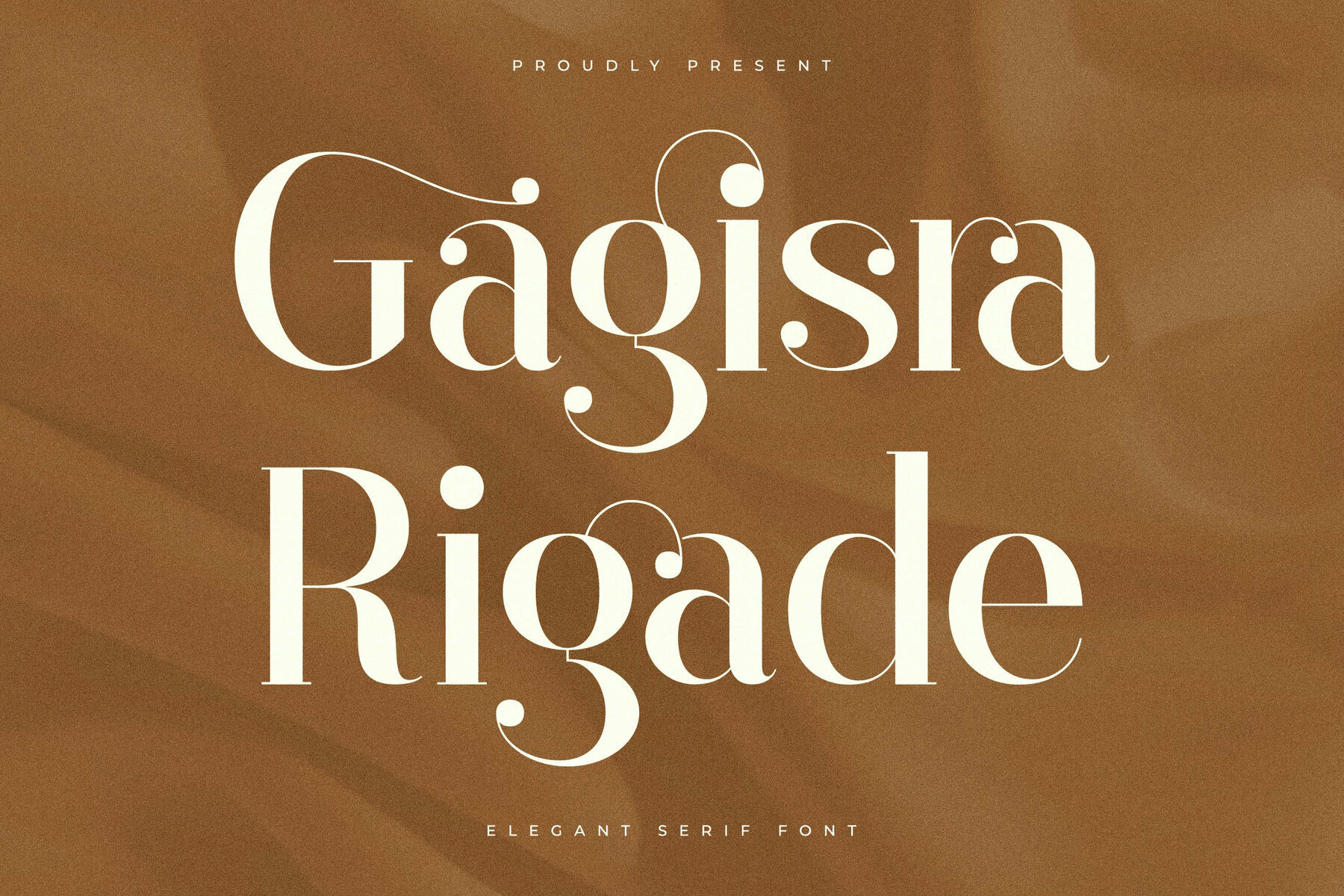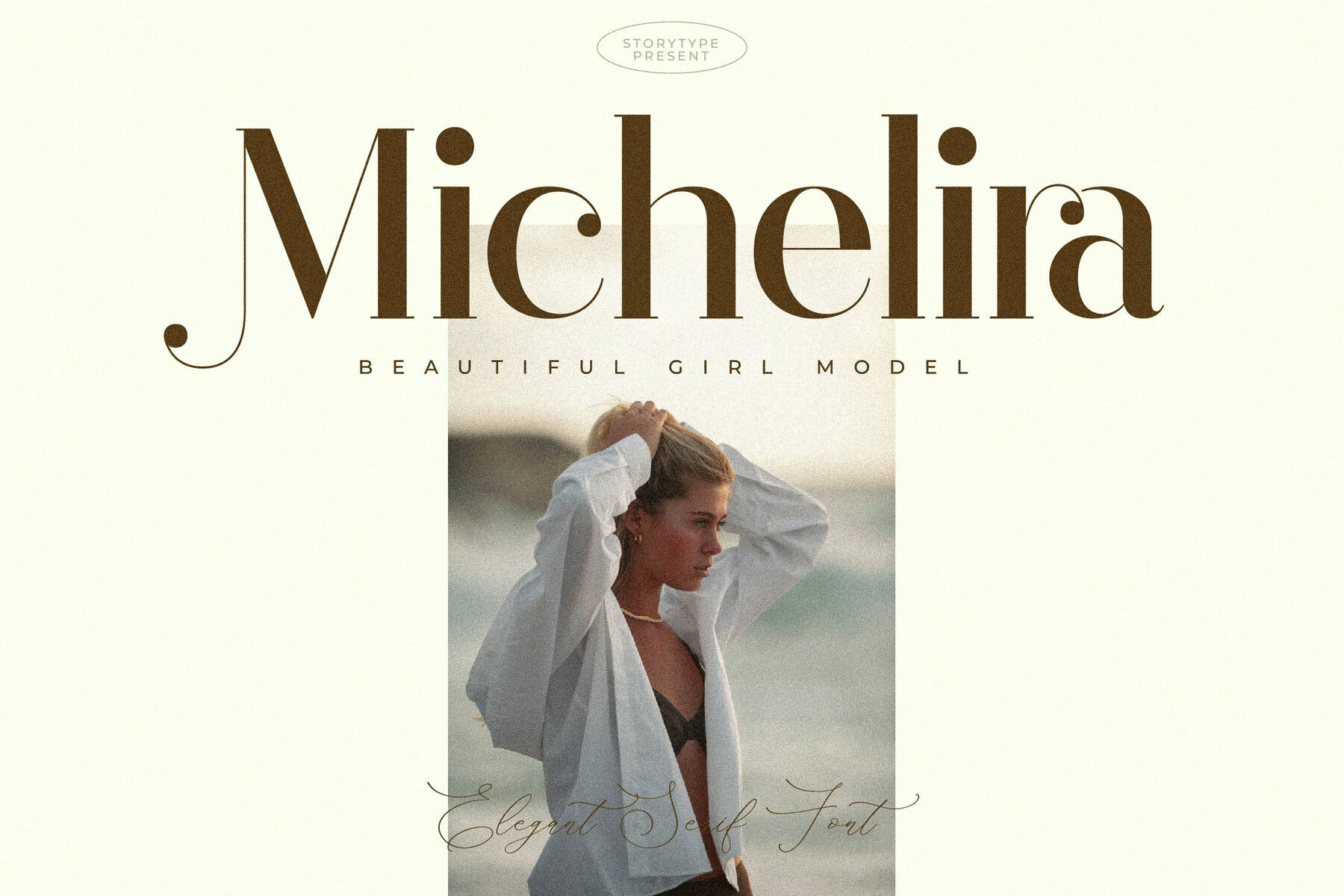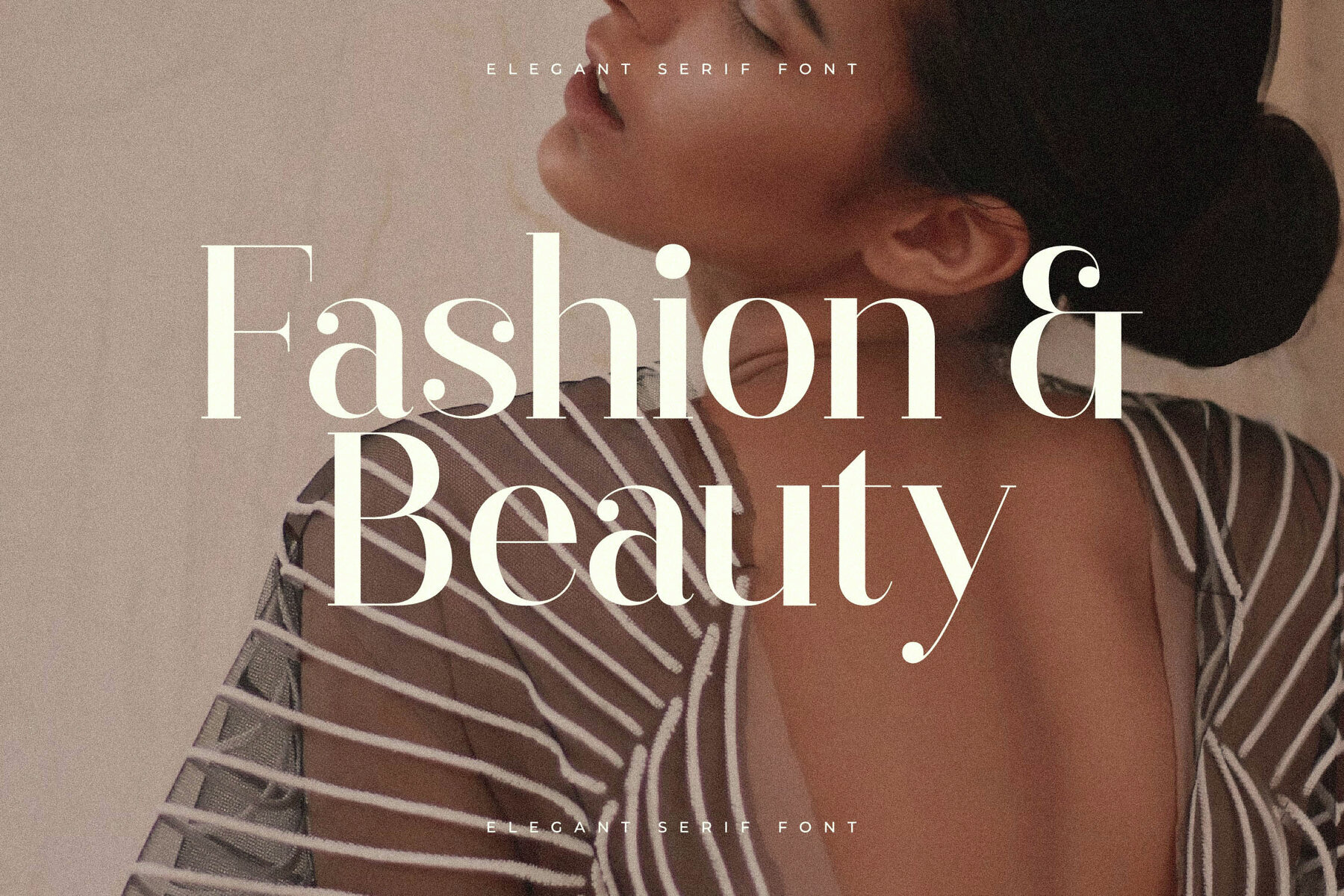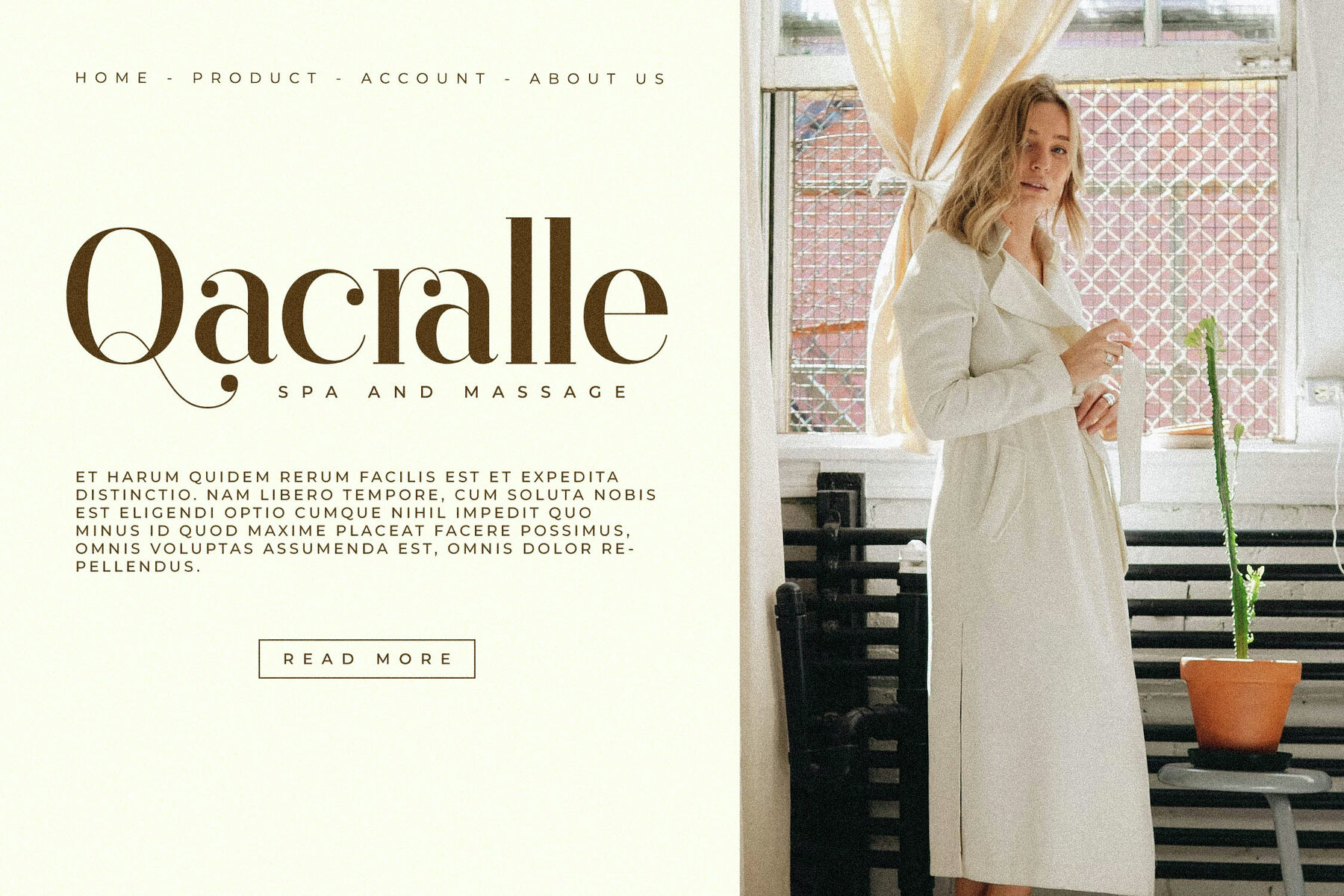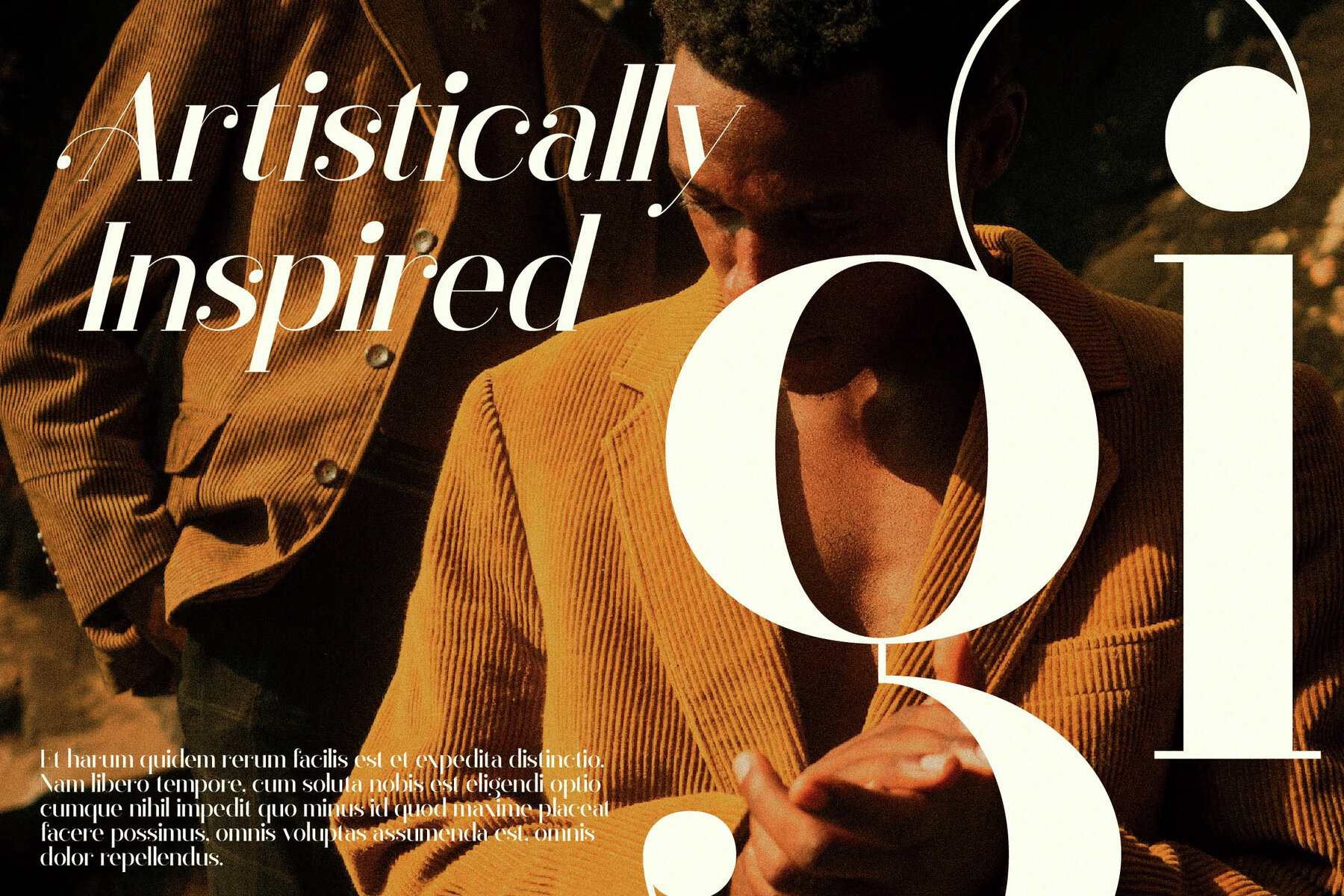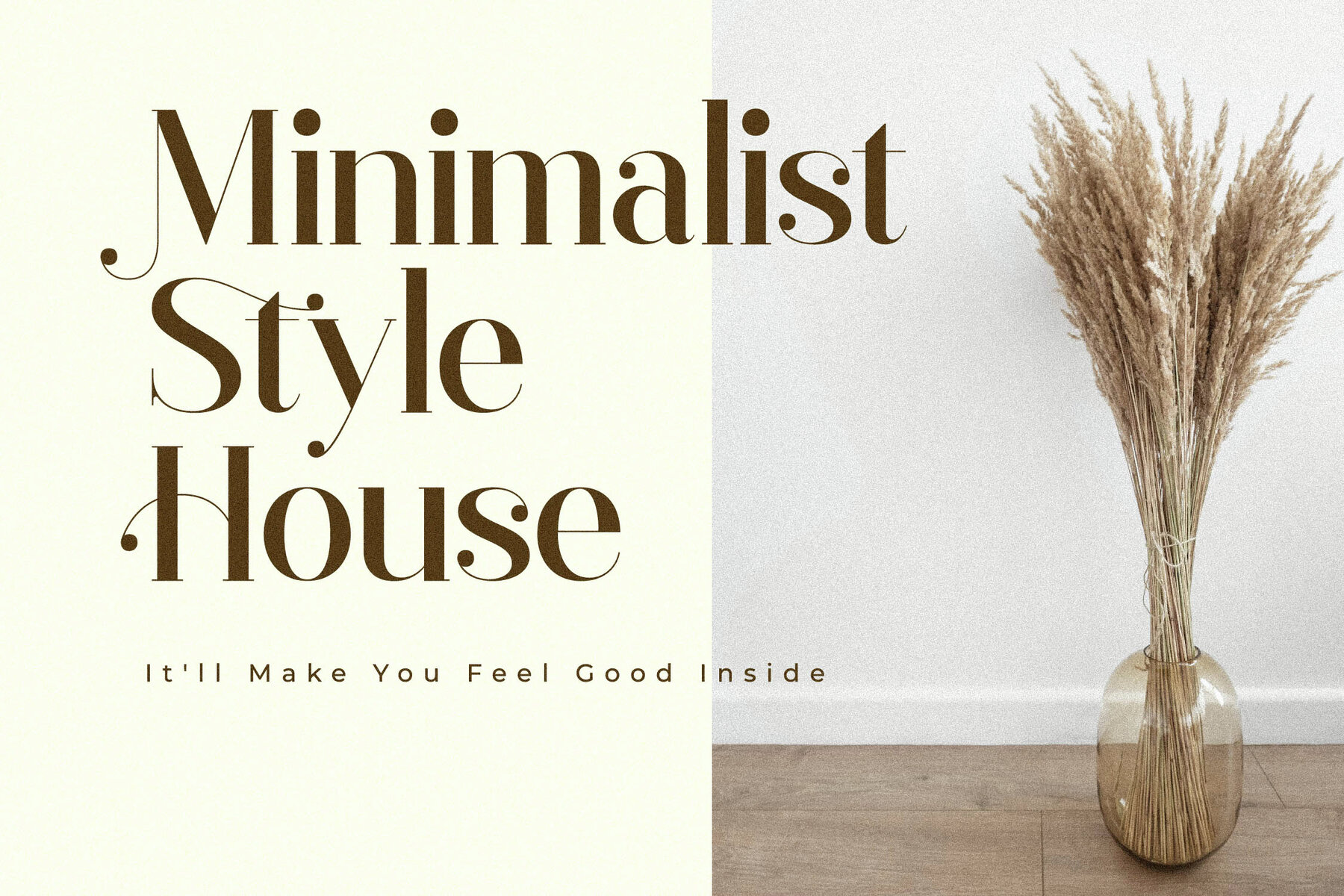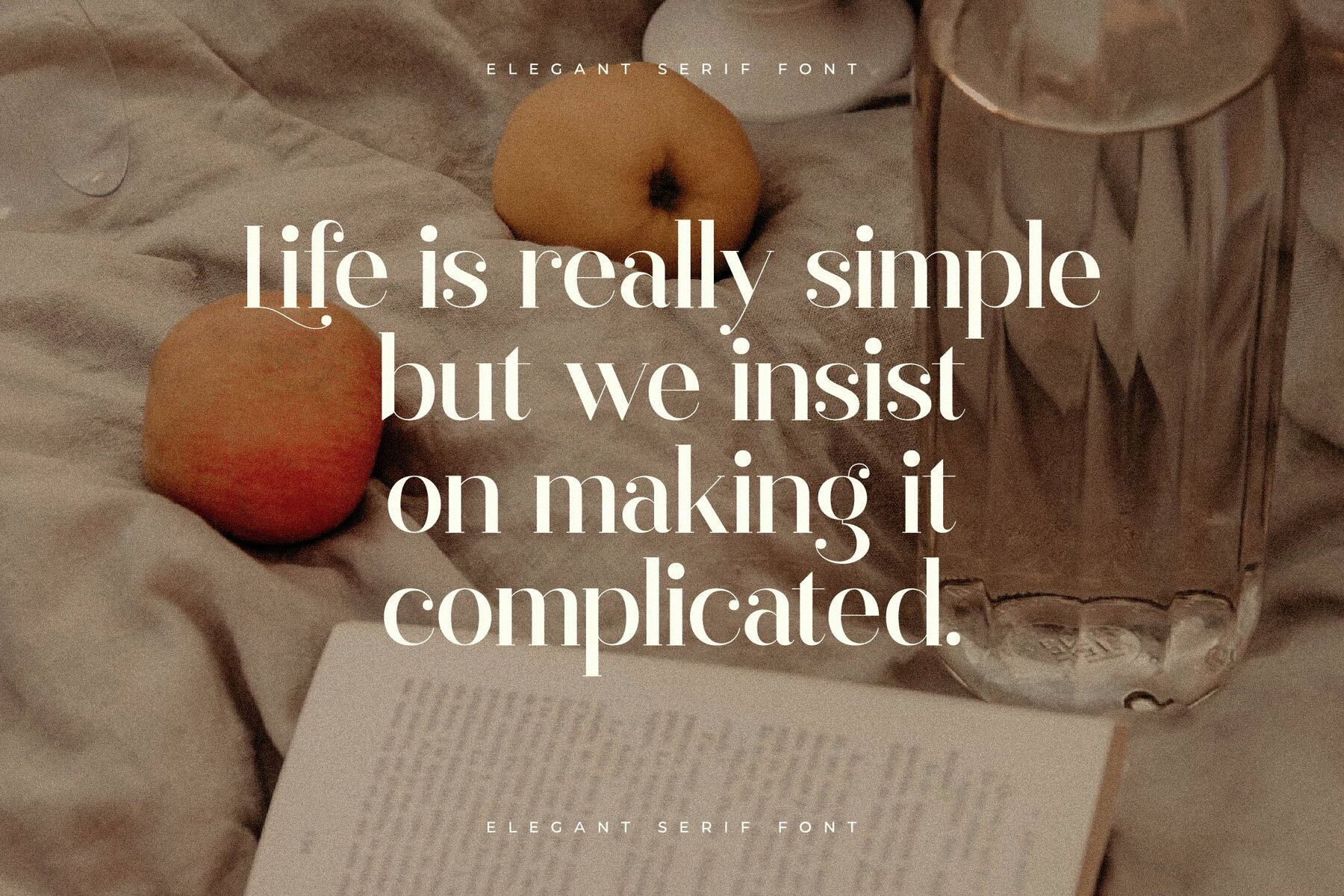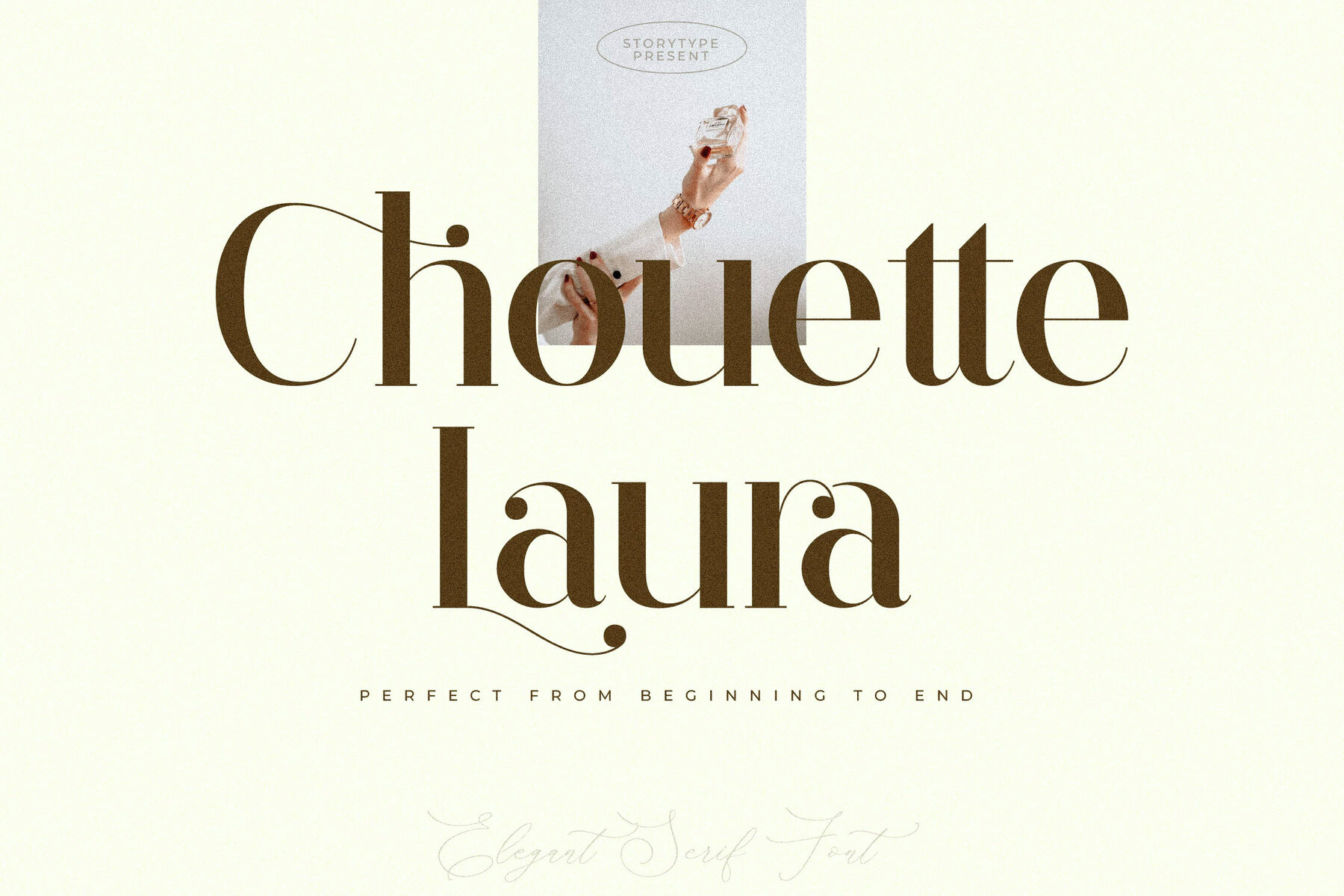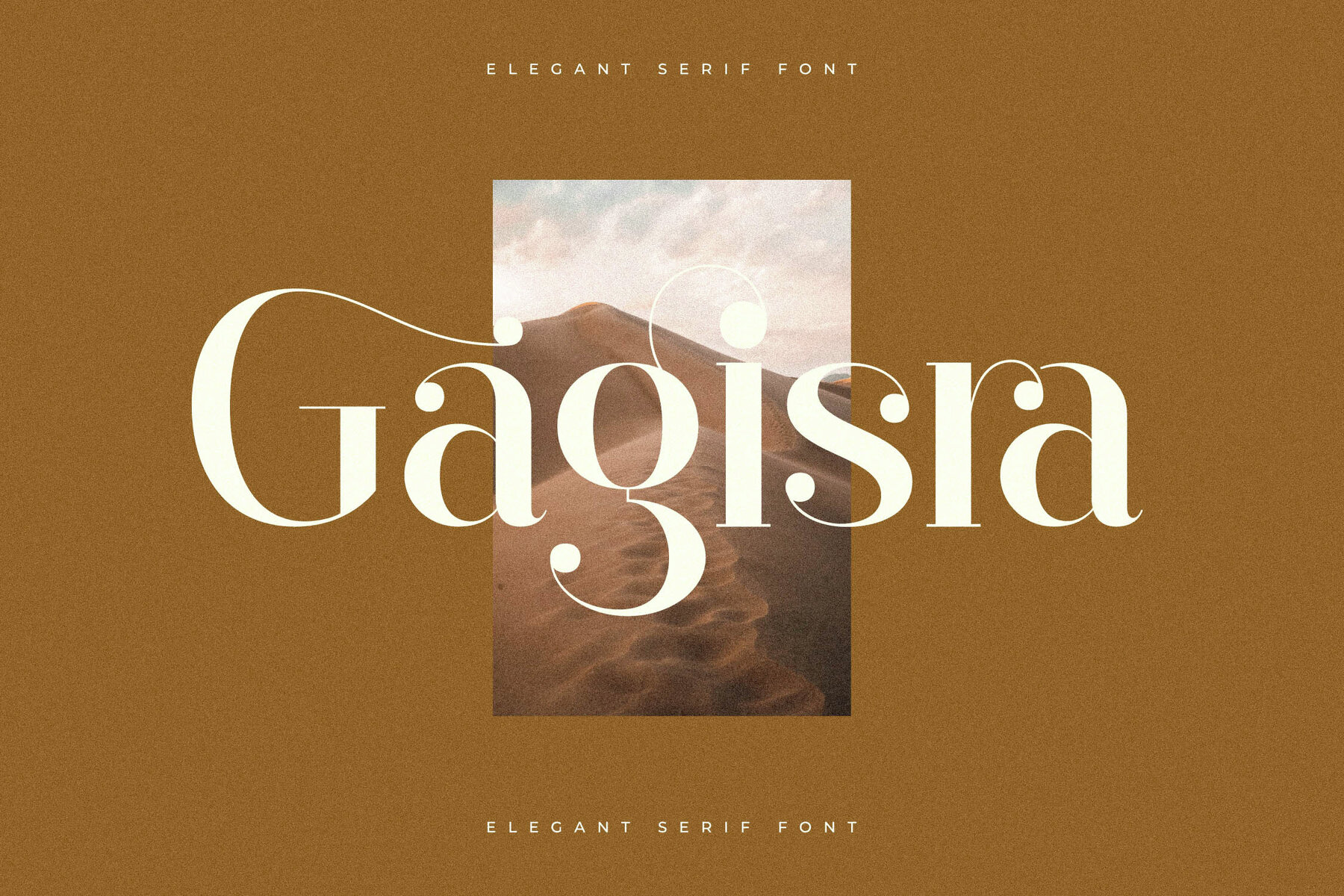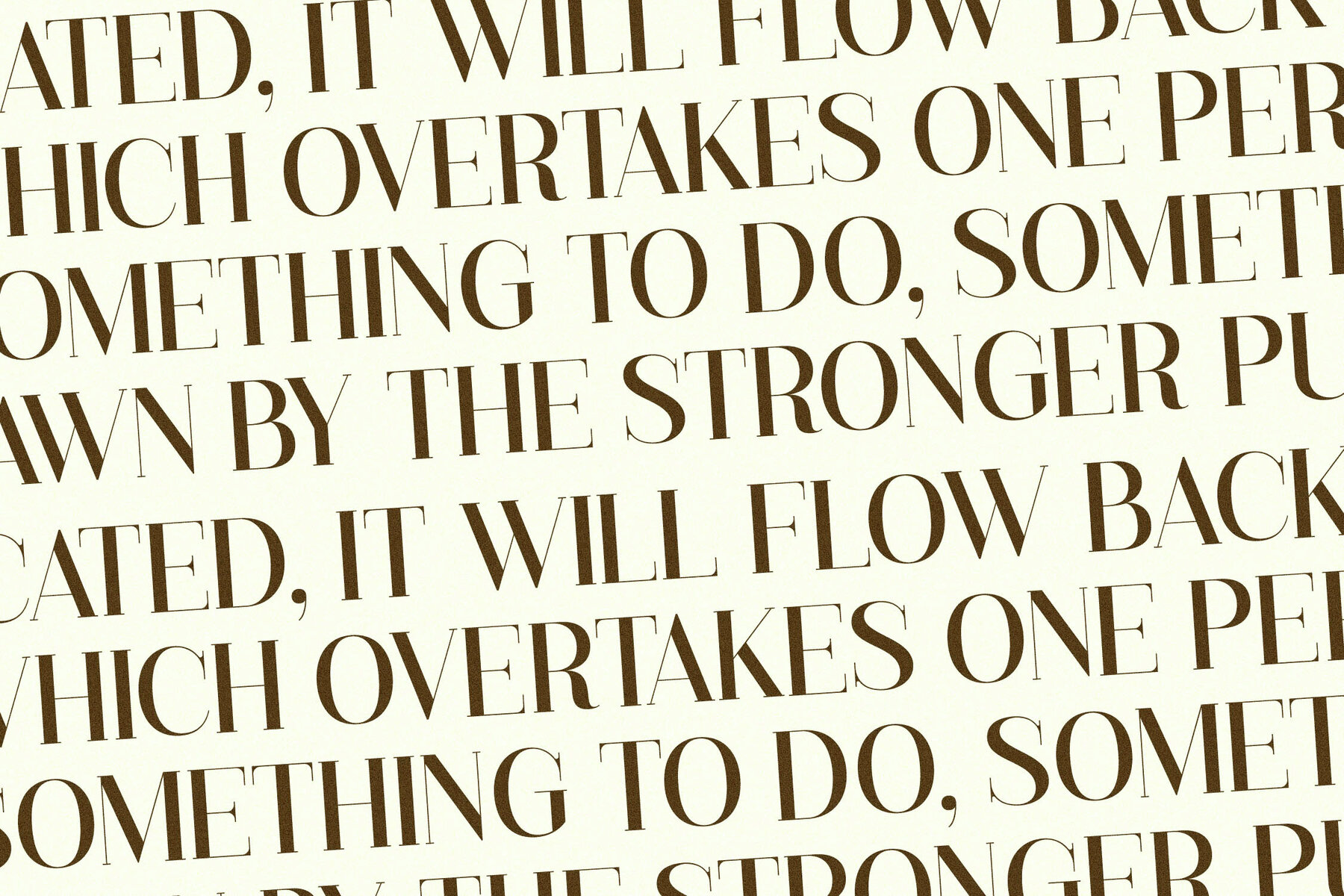
Gagisra Rigade Font
Discover the elegance of the Gagisra Rigade Typeface, a creation by Storytype Studio that seamlessly blends modern and classic serif styles. Its distinct and sophisticated design makes it ideal for a range of projects. Whether crafting a luxury logo, book or movie title, or designing for a fashion brand or magazine, Gagisra Rigade is your go-to choice.Gagisra Rigade Typeface